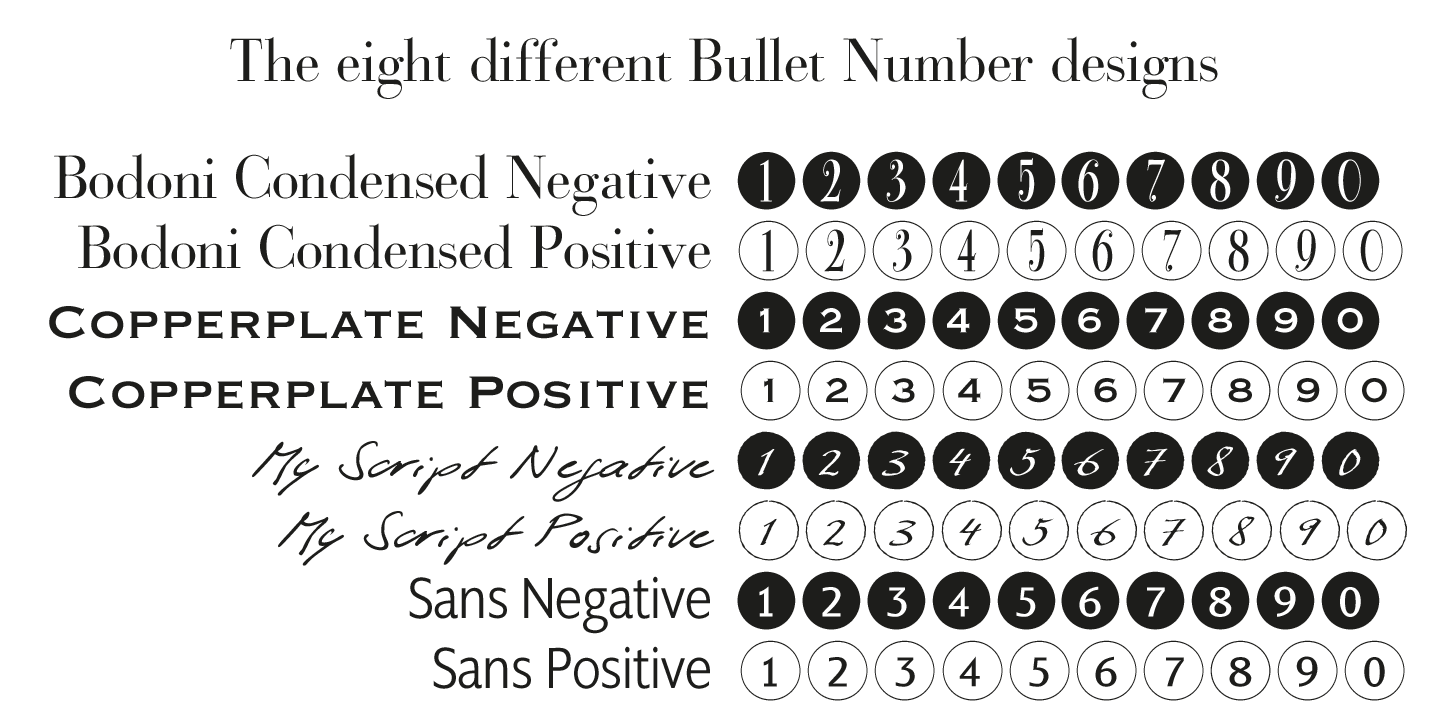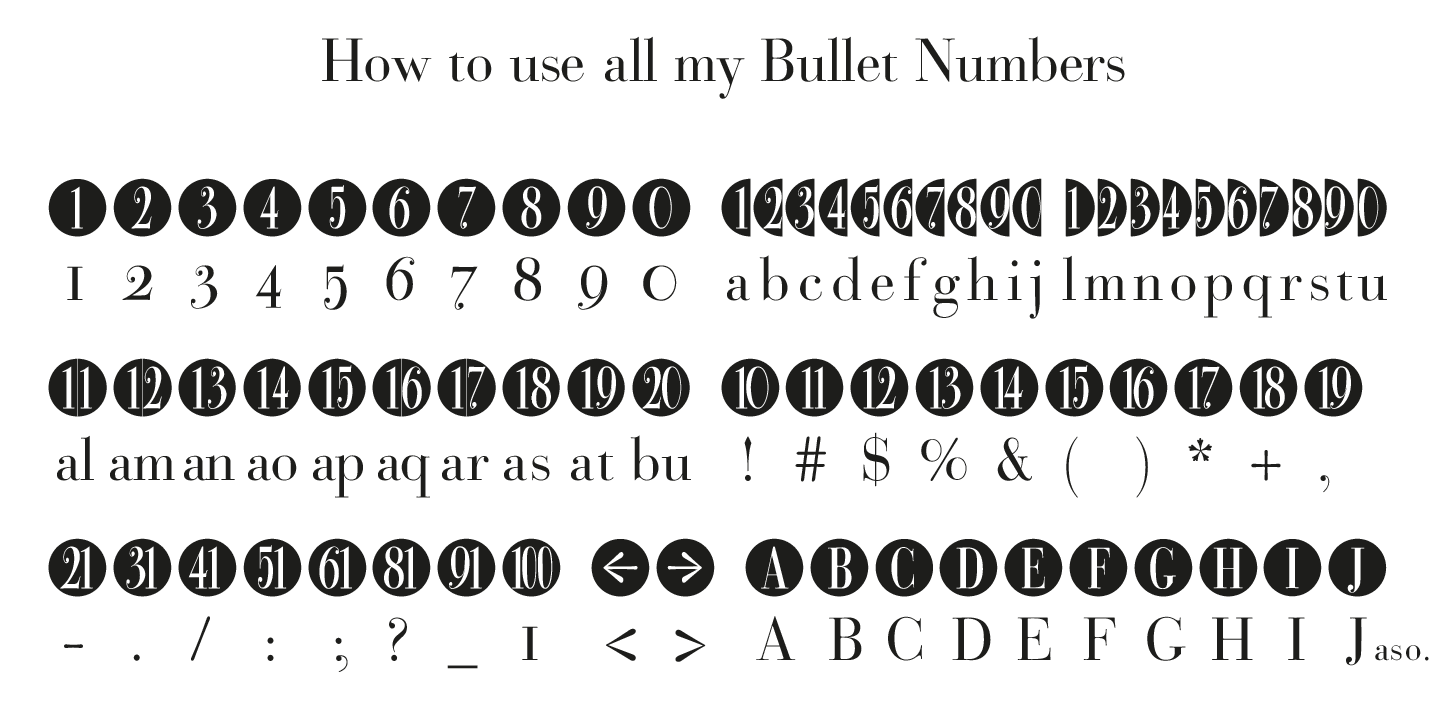
Bullet Numbers
This is a must read!!!
BulletNumbers come in very handy for all kinds of lists that don't exceed 100 categories. I have long since been using my own BulletNumbers in positive and negative and four styles, serif, sans, engravers and script, a fitting one for every occasion. Now I perfected them for all of you. Here is how to use them: (Important! Set letterspacing to ?0?, otherwise the two digit numbers will overlap!!!) The numbers 1-0 reside on the standard keys. Two digit numbers 01-99 can be composed out of left and right half circles by using (lowercase) ?abcdefghij? for the first digit (left half circle) and ?lmnopqrstu? for the second digit (right half circle). The critical pairs (all combinations with 1) can be found in various places. Type ?!? for 10, ?#? for 11, '$? 12, ?%? for 13, ?&? for 14, ?(? for 15, ?)? for 16, ?*? for 17, ?+? for 18, ?,? for 19, ?-? for 21, ?.? for 31, ?/? for 41, ?:? for 51, ?;? for 61, ??' for 81, ?_? for 91. The two arrows are on the < and > keys. ?100? can be found with shift+option+1. Last but not least, the capital letter bullets A-Z can be found on the shift+letter A-Z.